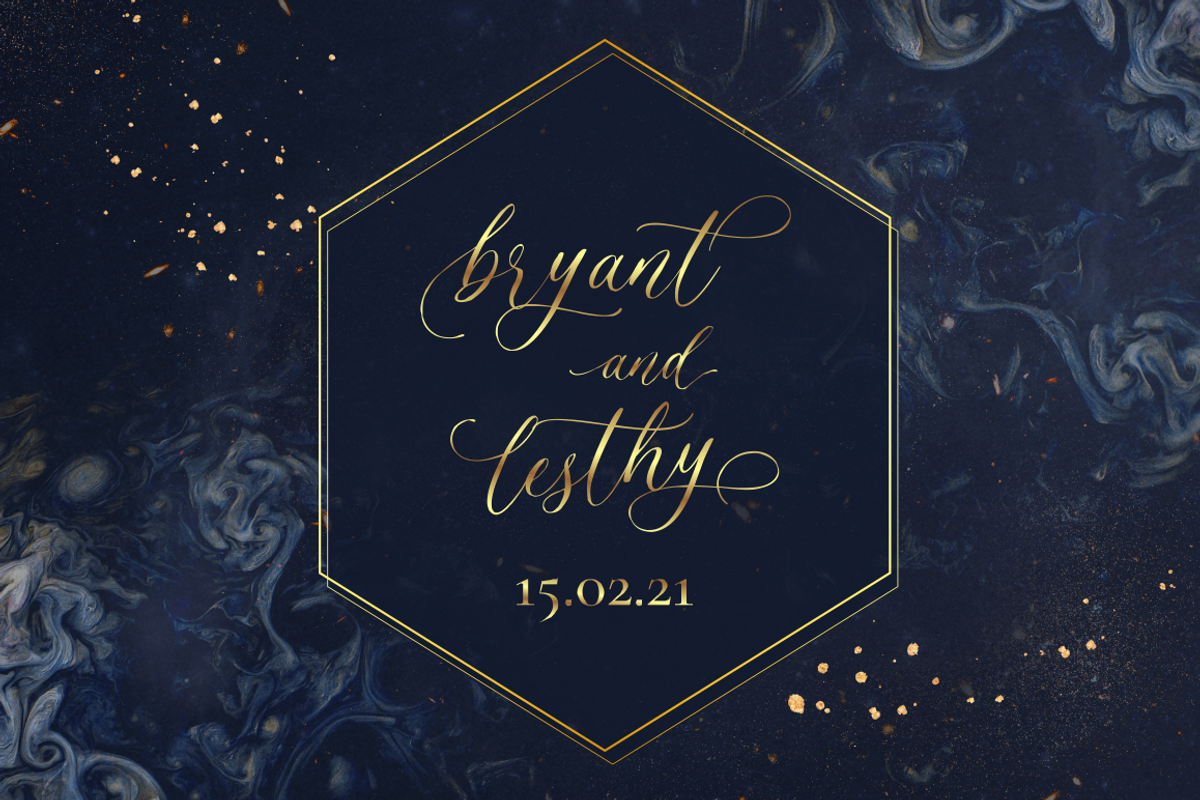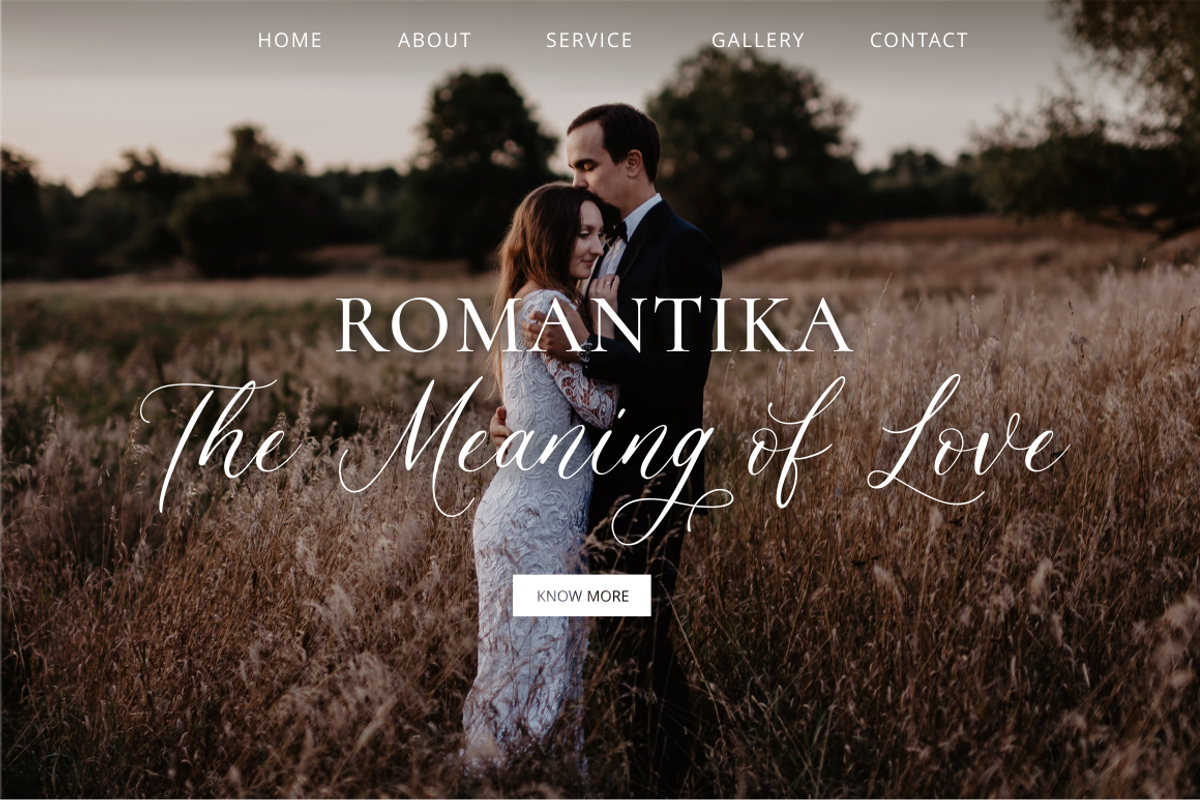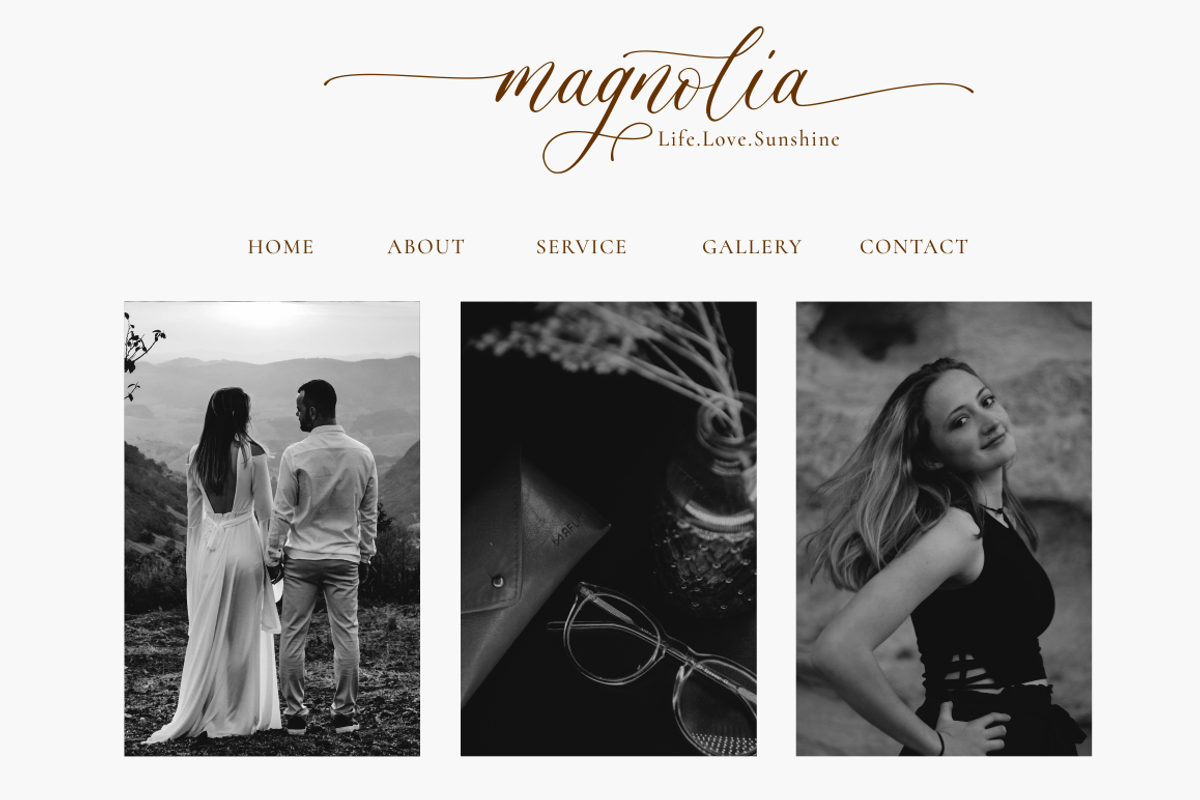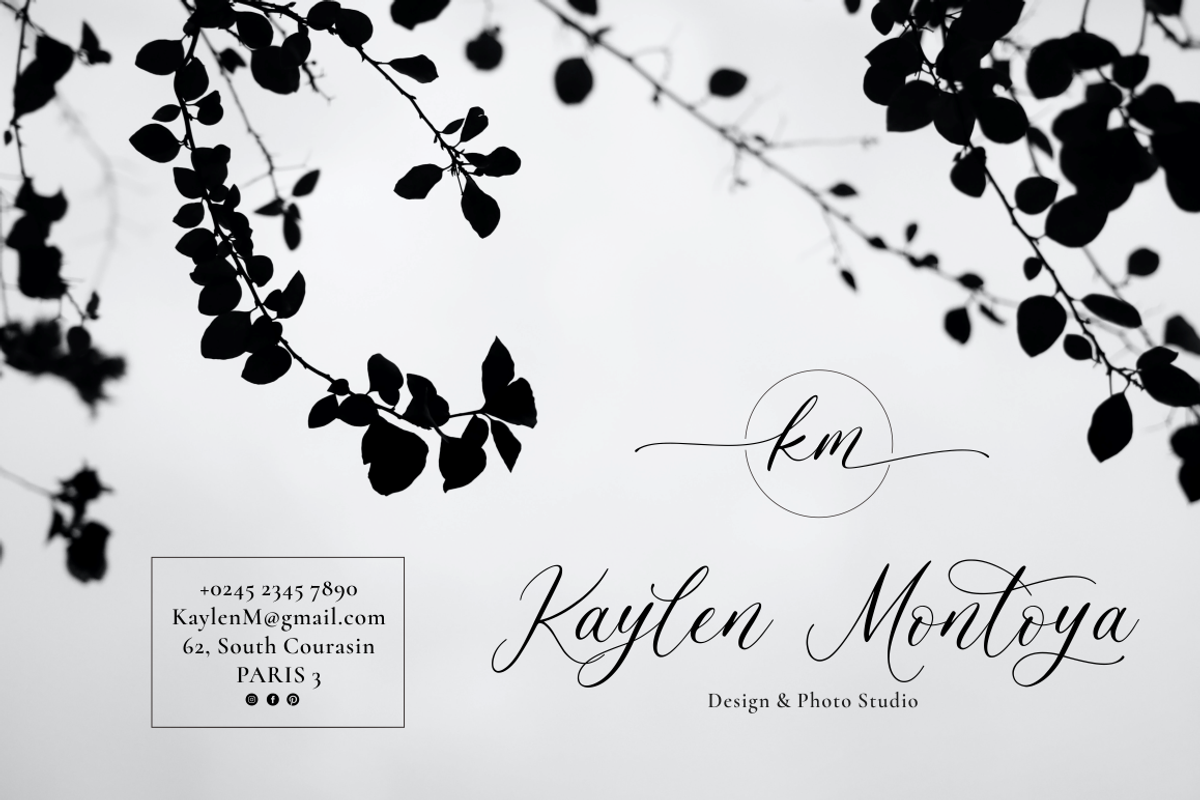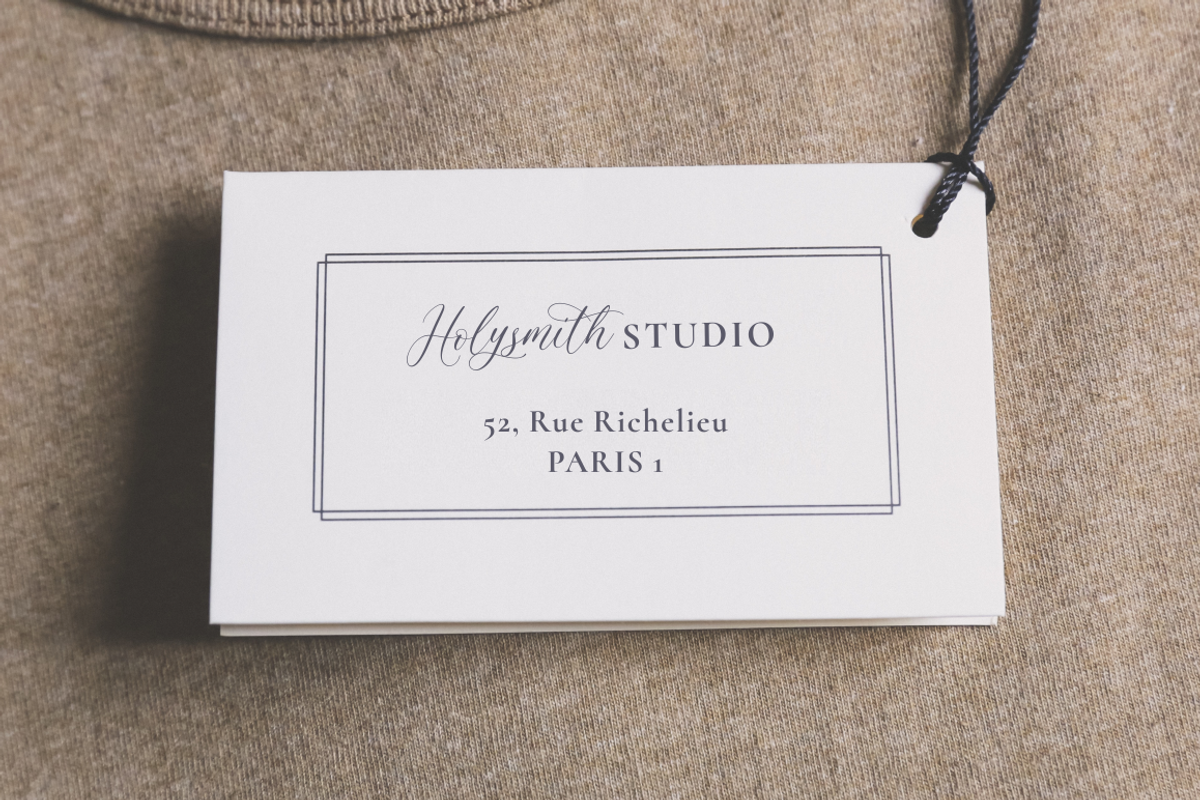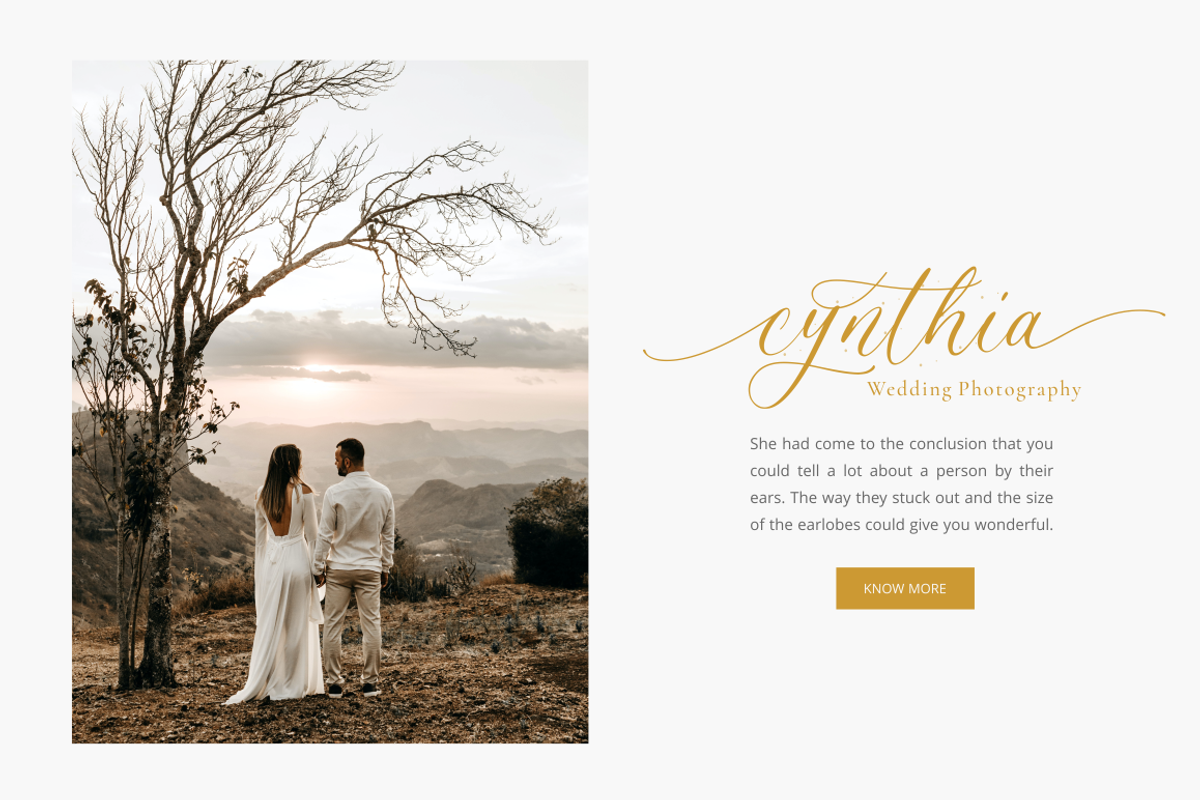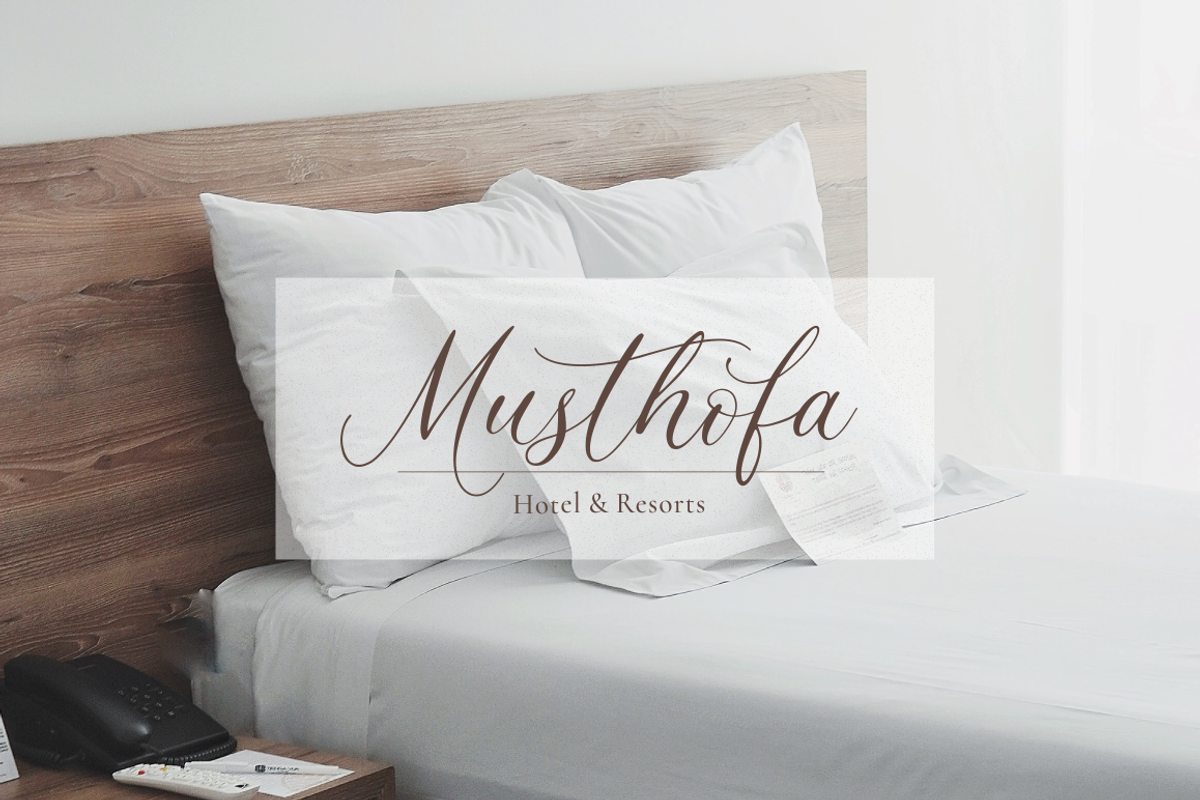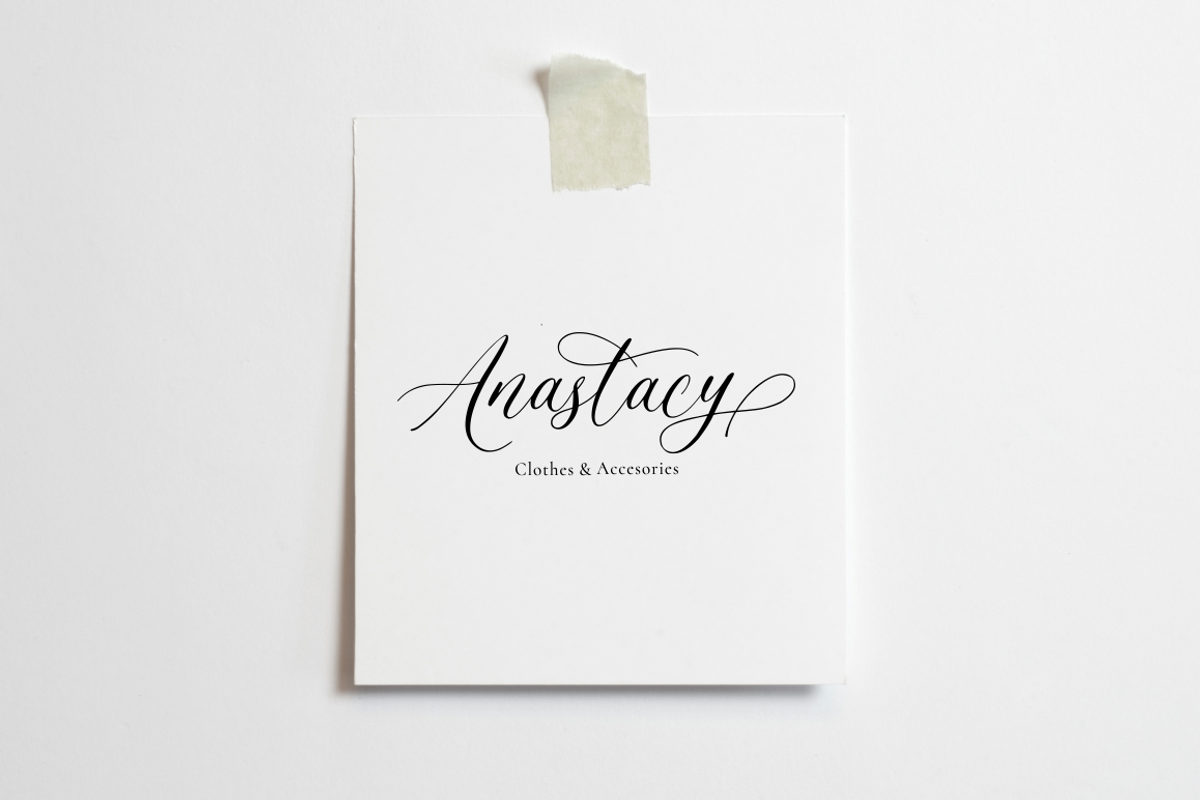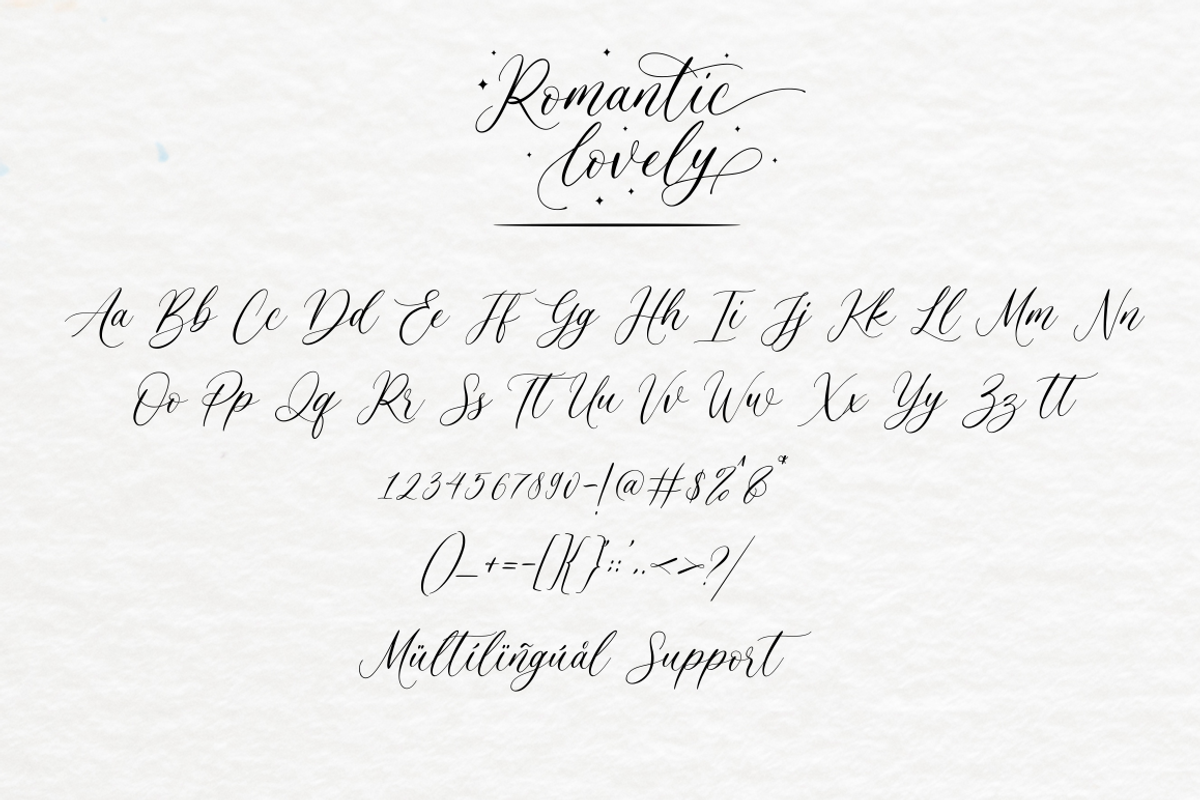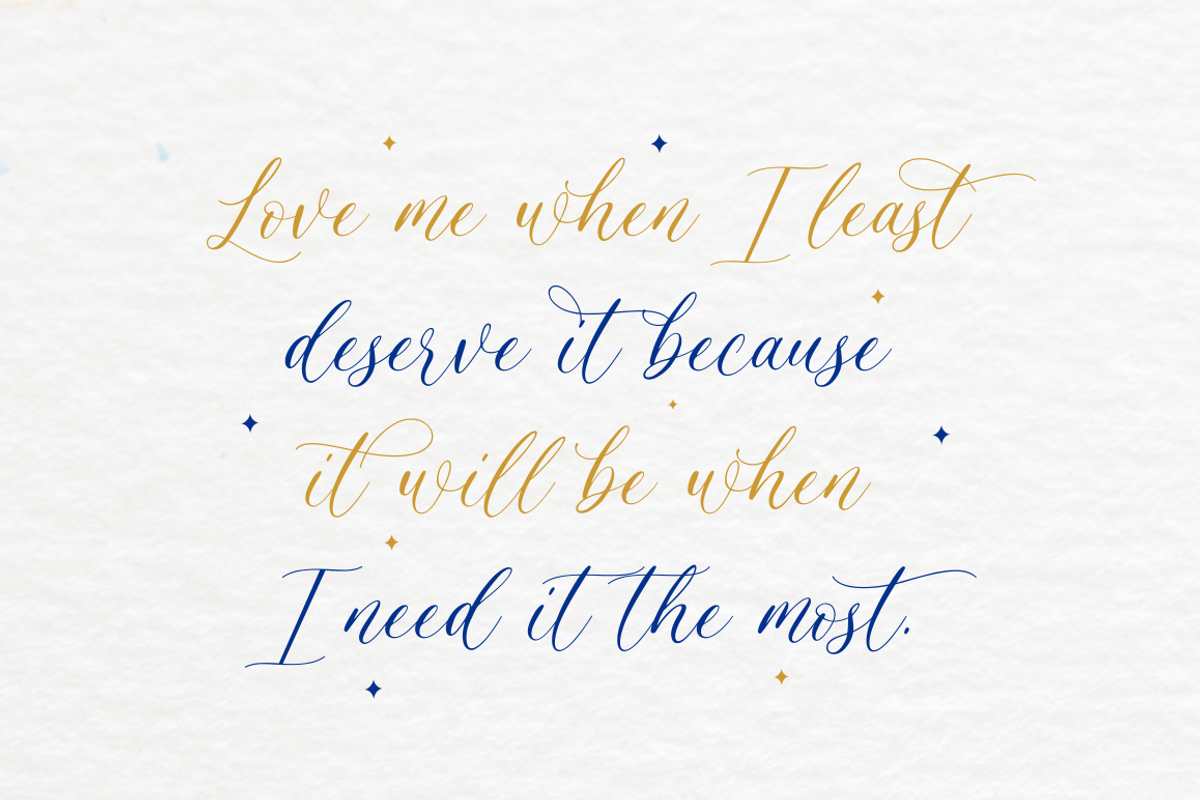
Romantic Lovely - Calligraphy Font
Introducing "Romantic Lovely," a captivating calligraphy font that will enchant your designs with its romantic and lovely essence. This font is carefully crafted with an abundance of alternate swashes, allowing you to effortlessly infuse your projects with a whimsical and enchanting flair. Whether you're creating wedding invitations, love notes, or any design that requires a touch of romance, "Romantic Lovely" is the perfect choice. Let this font sweep you away into a world of elegance and charm, where every curve and flourish evokes a sense of beauty and love. Elevate your designs and captivate your audience with the alluring allure of "Romantic Lovely".
- Uppercase and lowercase letters
- Swash alternates ( Beginning, Middle, Ending )
- Multilingual symbols, numerals, and punctuation